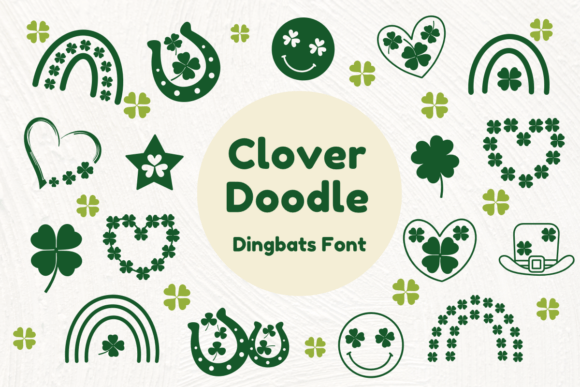
Clover Doodle Font: Elevate Your Creative Projects with a Sketched Theme
The Clover Doodle font is a unique and creative dingbats font that features a sketched theme, perfect for adding a personal touch to your projects. With its delicate and whimsical design, this font is ideal for a variety of creative endeavors, including wedding invitations, DIY crafts, decorations, logos, and more.
What is Clover Doodle Font?
Clover Doodle is a dingbats font that boasts a distinctive sketched style, characterized by its freehand and hand-drawn appearance. The font is designed to resemble doodles, with a charming and rustic feel that adds a touch of personality to any project. The Clover Doodle font is perfect for crafty individuals, DIY enthusiasts, and creative professionals looking to add a unique flair to their work.
Features of Clover Doodle Font
The Clover Doodle font comes with a range of features that make it an excellent choice for creative projects. Some of its key features include:
- Unique Sketched Design: The font’s sketched theme gives it a distinctive and eye-catching appearance that sets it apart from other fonts.
- Dingbats Style: As a dingbats font, Clover Doodle features a collection of symbols, icons, and illustrations that can be used to add visual interest to your projects.
- Hand-Drawn Appearance: The font’s hand-drawn design gives it a personal and rustic feel that is perfect for adding a touch of whimsy to your work.
- Versatile: Clover Doodle can be used for a wide range of creative projects, from wedding invitations and DIY crafts to logos and decorations.
Uses of Clover Doodle Font
The Clover Doodle font is an incredibly versatile font that can be used for a variety of creative projects. Here are some ideas to get you started:
Wedding Invitations
Clover Doodle is perfect for wedding invitations, adding a touch of romance and whimsy to your special day. Use the font to create custom illustrations, decorations, and even the invitation text itself.
DIY Crafts
The Clover Doodle font is a great choice for DIY enthusiasts, with its hand-drawn design and sketched theme. Use the font to create custom labels, signs, and decorations for your craft projects.
Logos and Branding
Clover Doodle can also be used to create unique and eye-catching logos and branding materials. The font’s distinctive design makes it perfect for businesses and individuals looking to stand out from the crowd.
Decorations and Signs
The Clover Doodle font is also great for creating decorations and signs, such as wall art, banners, and more. Use the font to add a personal touch to your home or office.
Tips for Using Clover Doodle Font
Here are some tips for getting the most out of the Clover Doodle font:
- Experiment with Different Sizes: The Clover Doodle font looks great in a variety of sizes, from small and delicate to large and bold. Experiment with different sizes to find the perfect fit for your project.
- Combine with Other Fonts: Clover Doodle pairs well with other fonts, such as script fonts and serif fonts. Try combining it with other fonts to create a unique and eye-catching design.
- Use for Headings and Titles: The Clover Doodle font is perfect for headings and titles, adding a touch of personality and whimsy to your text.
- Add a Personal Touch: The Clover Doodle font is all about adding a personal touch to your projects. Don’t be afraid to experiment and add your own unique flair to your designs.
The Clover Doodle font is a unique and creative dingbats font that features a sketched theme. With its delicate and whimsical design, this font is perfect for a variety of creative projects, from wedding invitations and DIY crafts to logos and decorations. Whether you’re a crafty individual, DIY enthusiast, or creative professional, Clover Doodle is a great choice for adding a personal touch to your work.